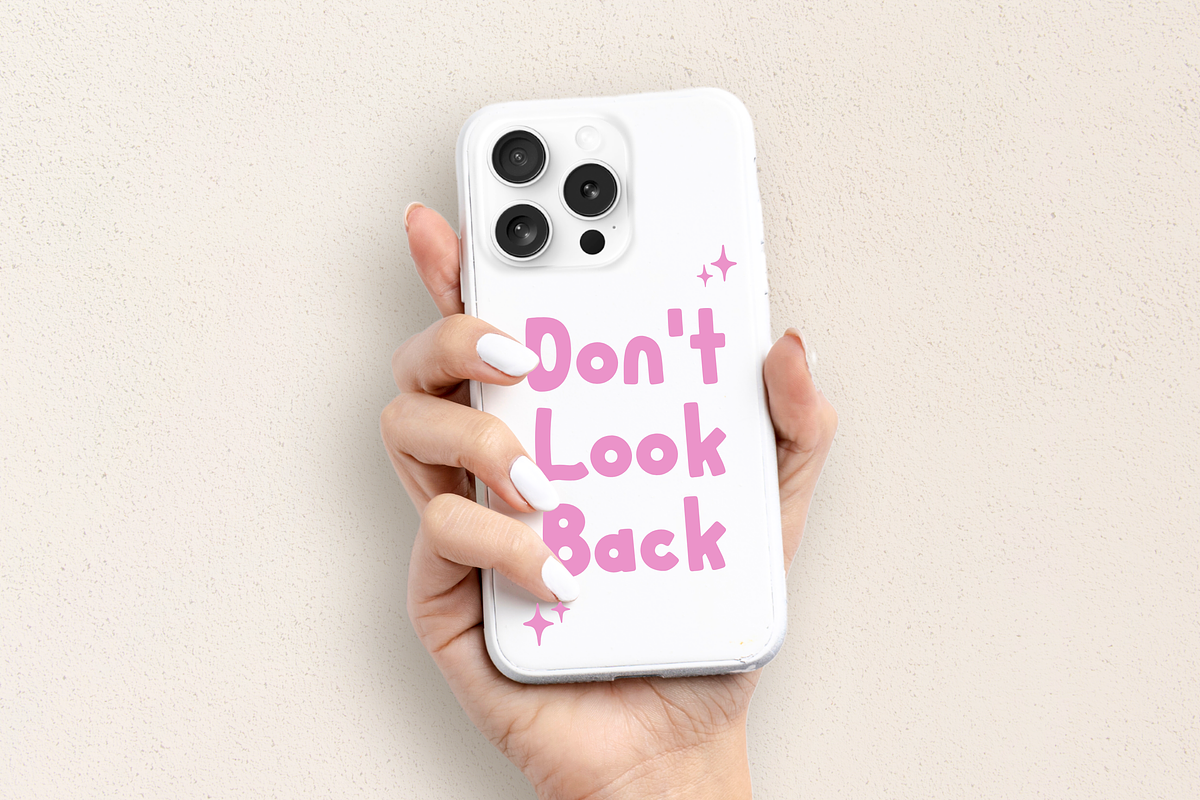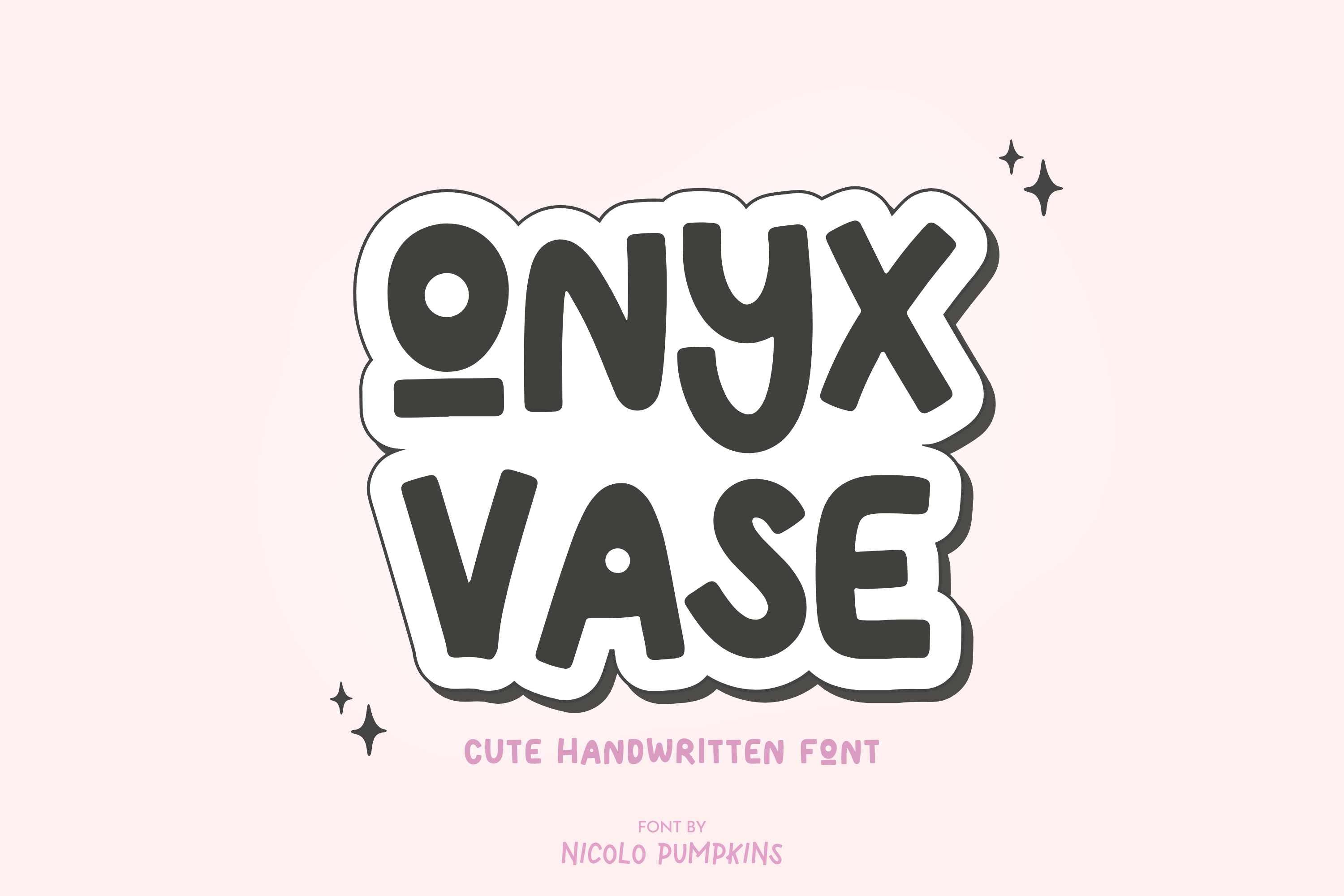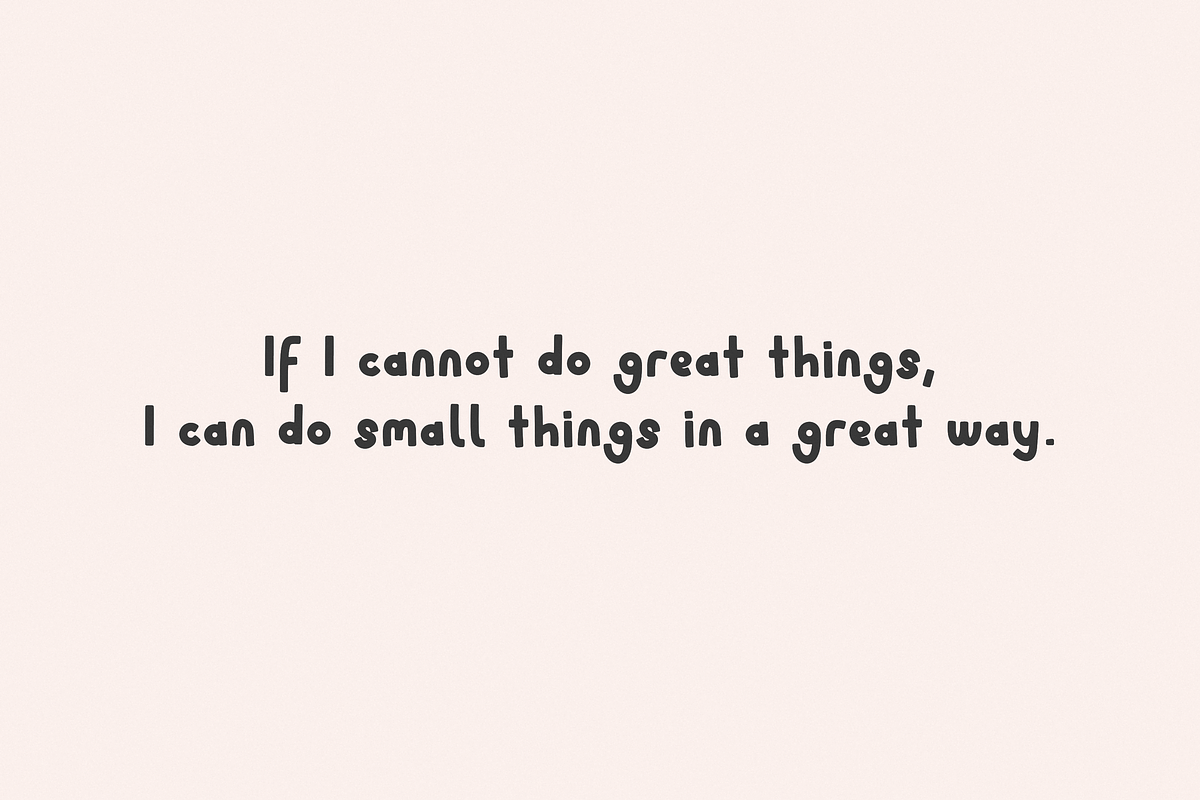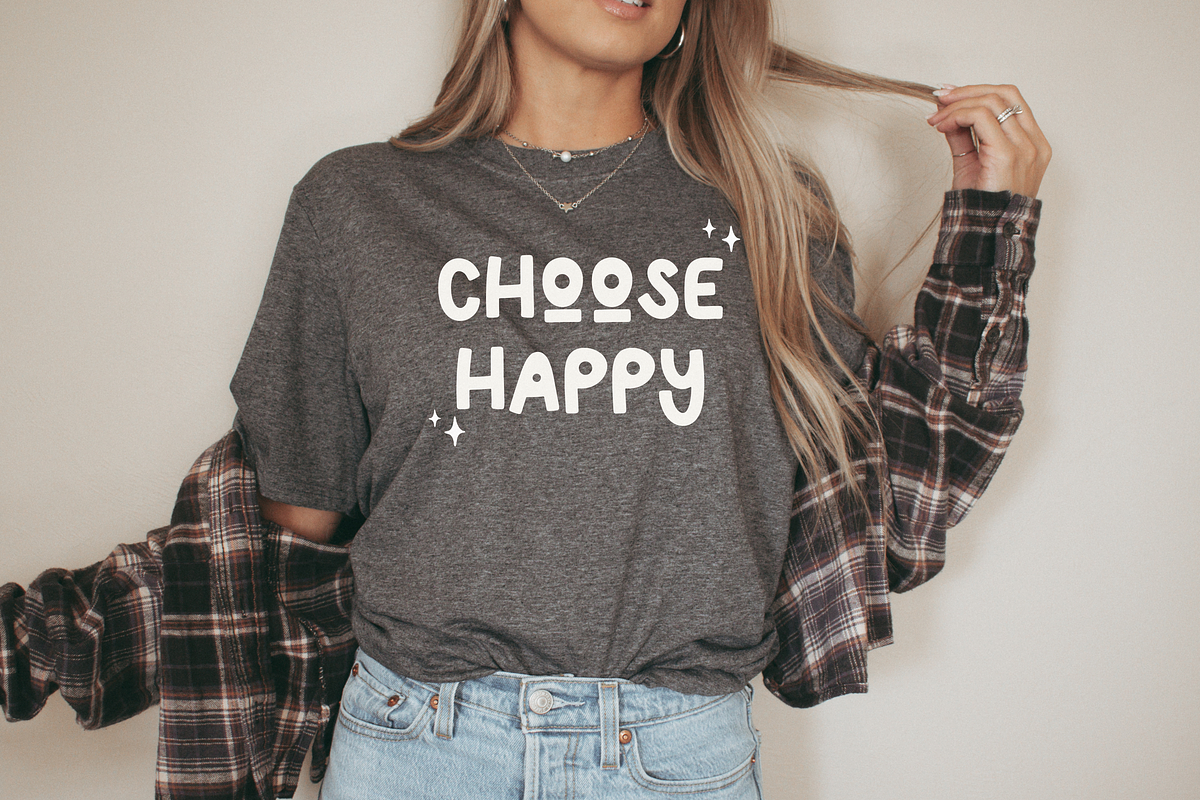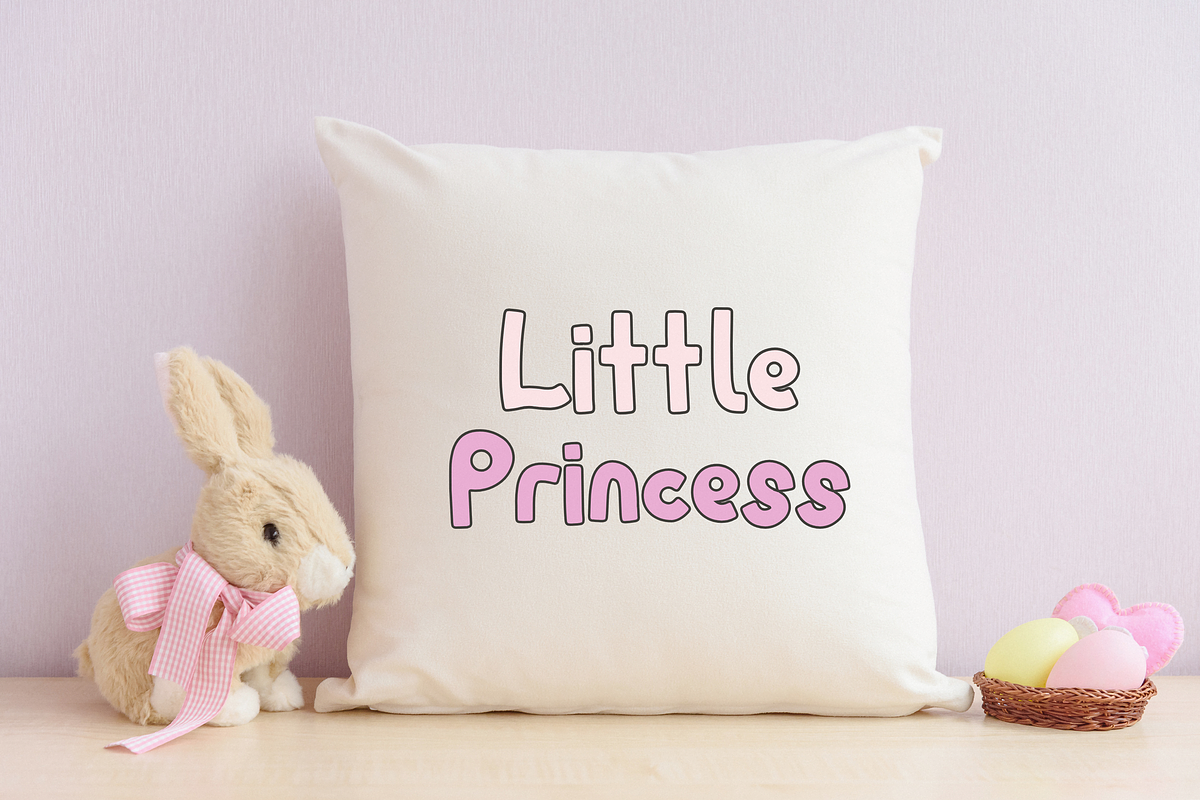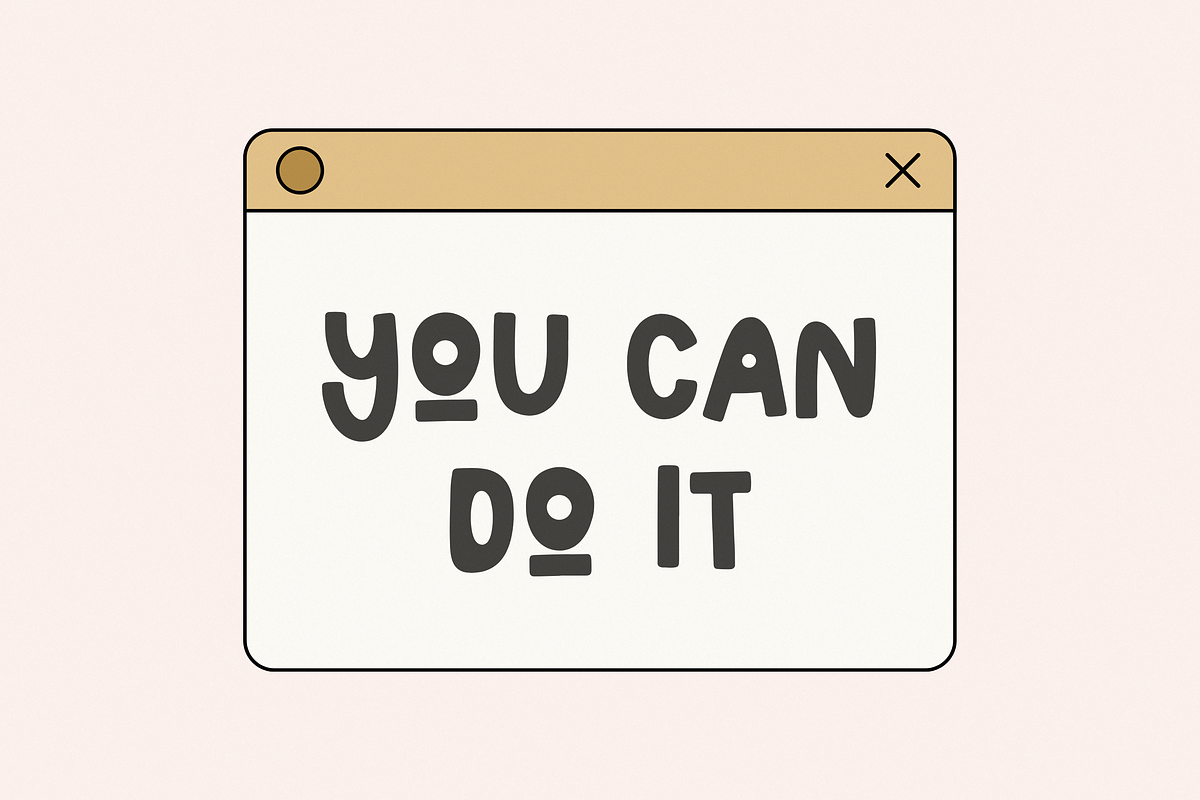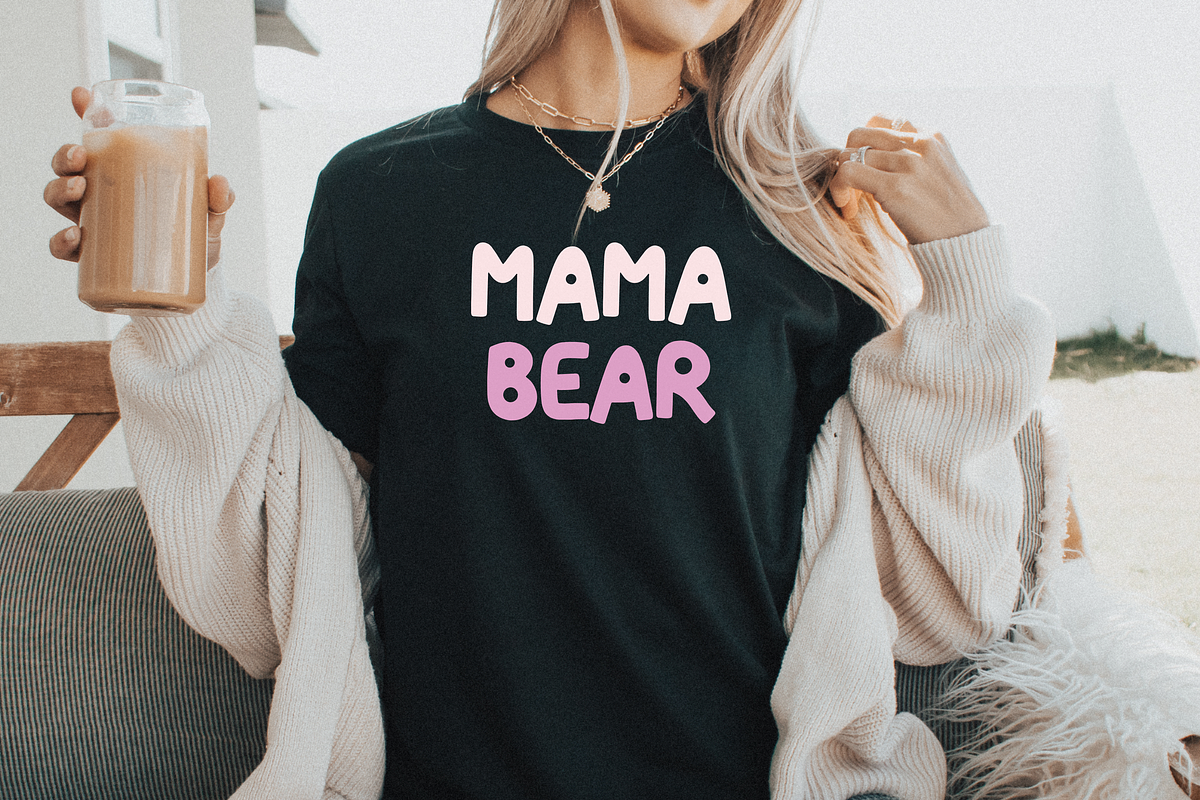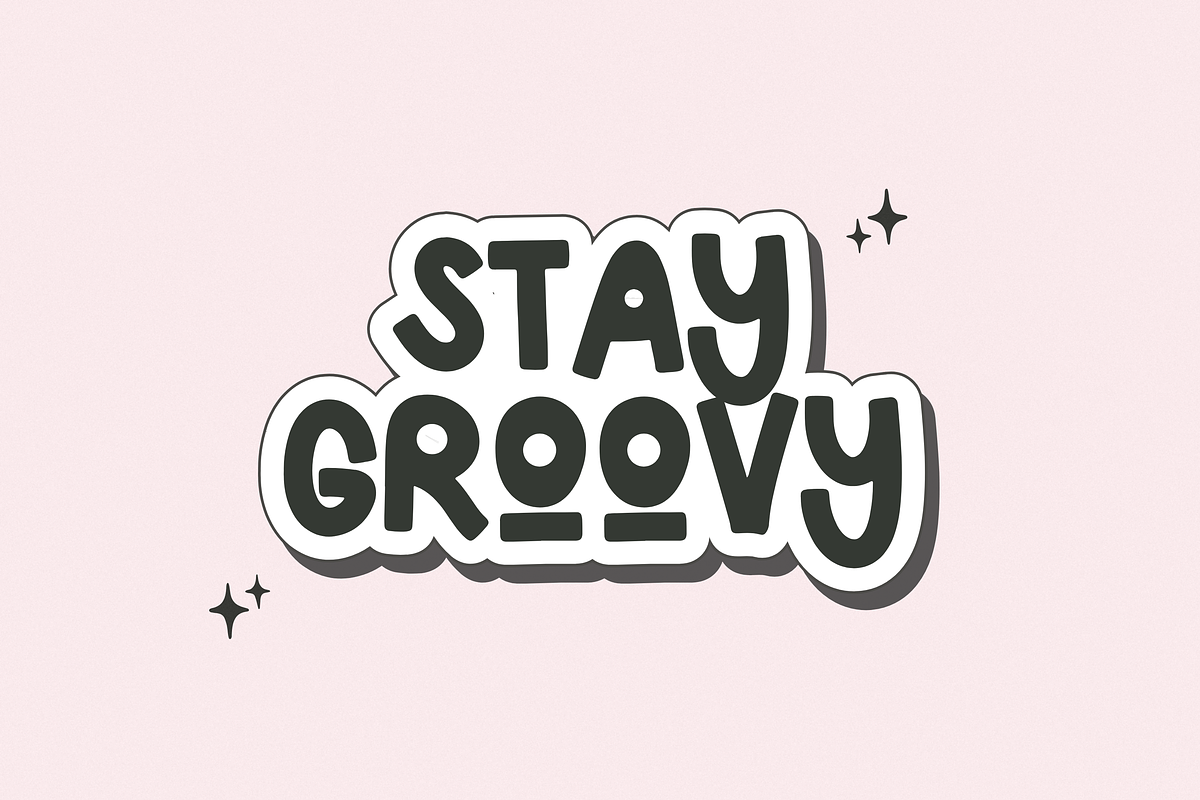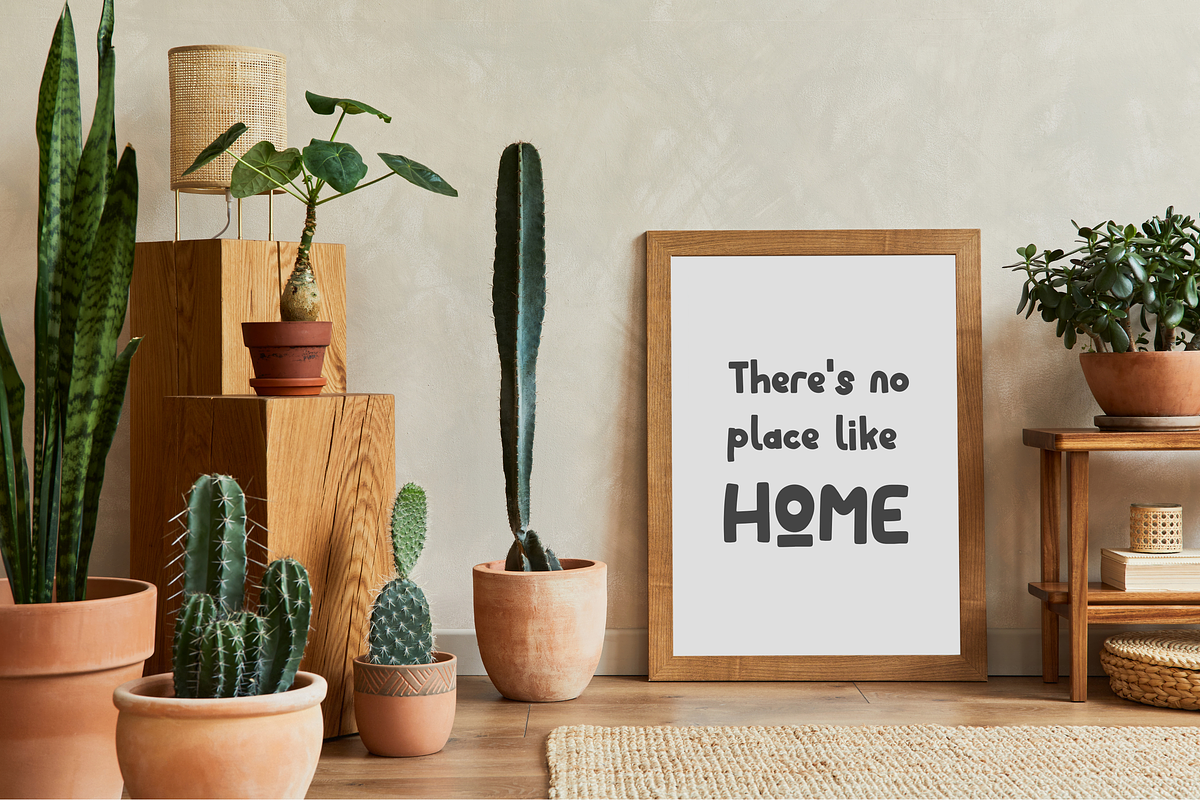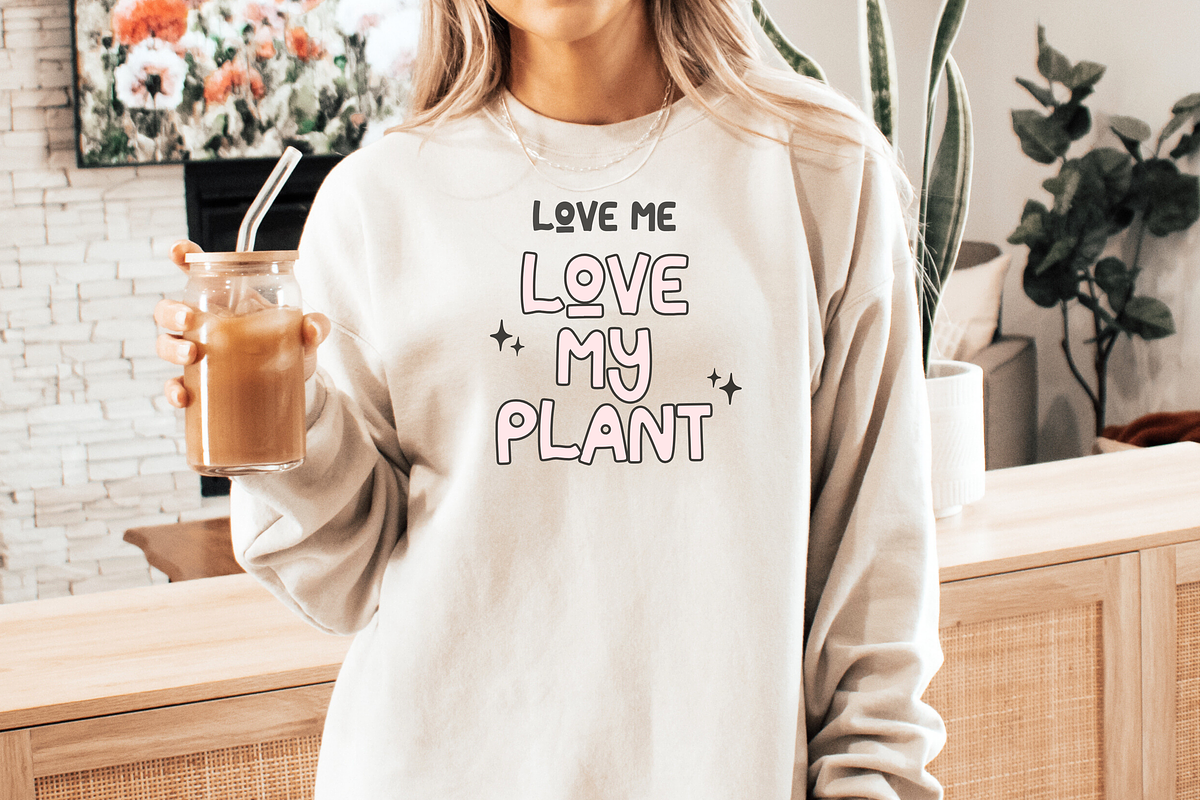
ONYX VASE Font
ONYX VASE FONT A cute chubby bold handwritten font with fun & playful style.
✦ ONYX VASE is perfect for: shirts, mugs, logos, wedding invitations, poster, greeting cards, social media, branding, Procreate, digital note taking on digital planner, and more!